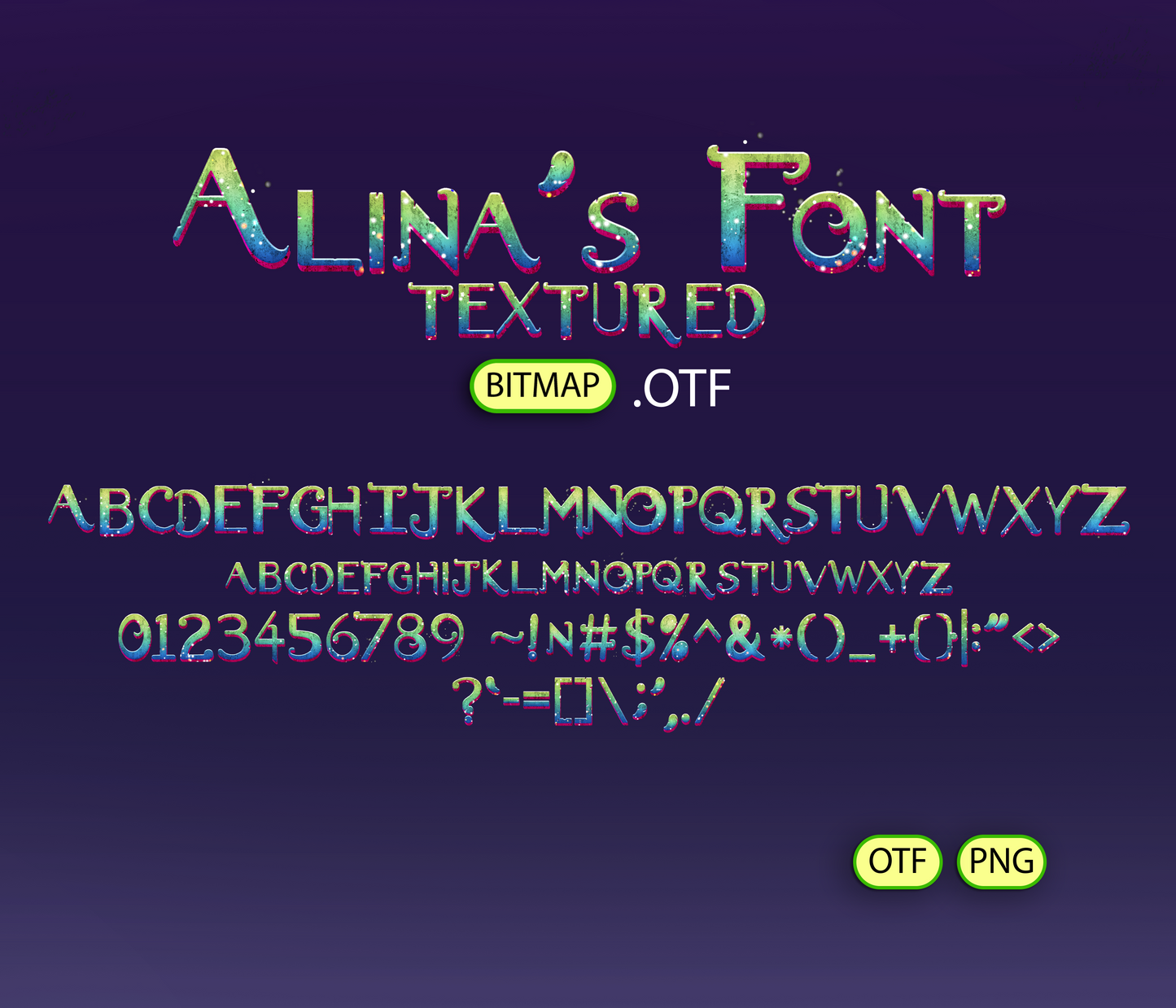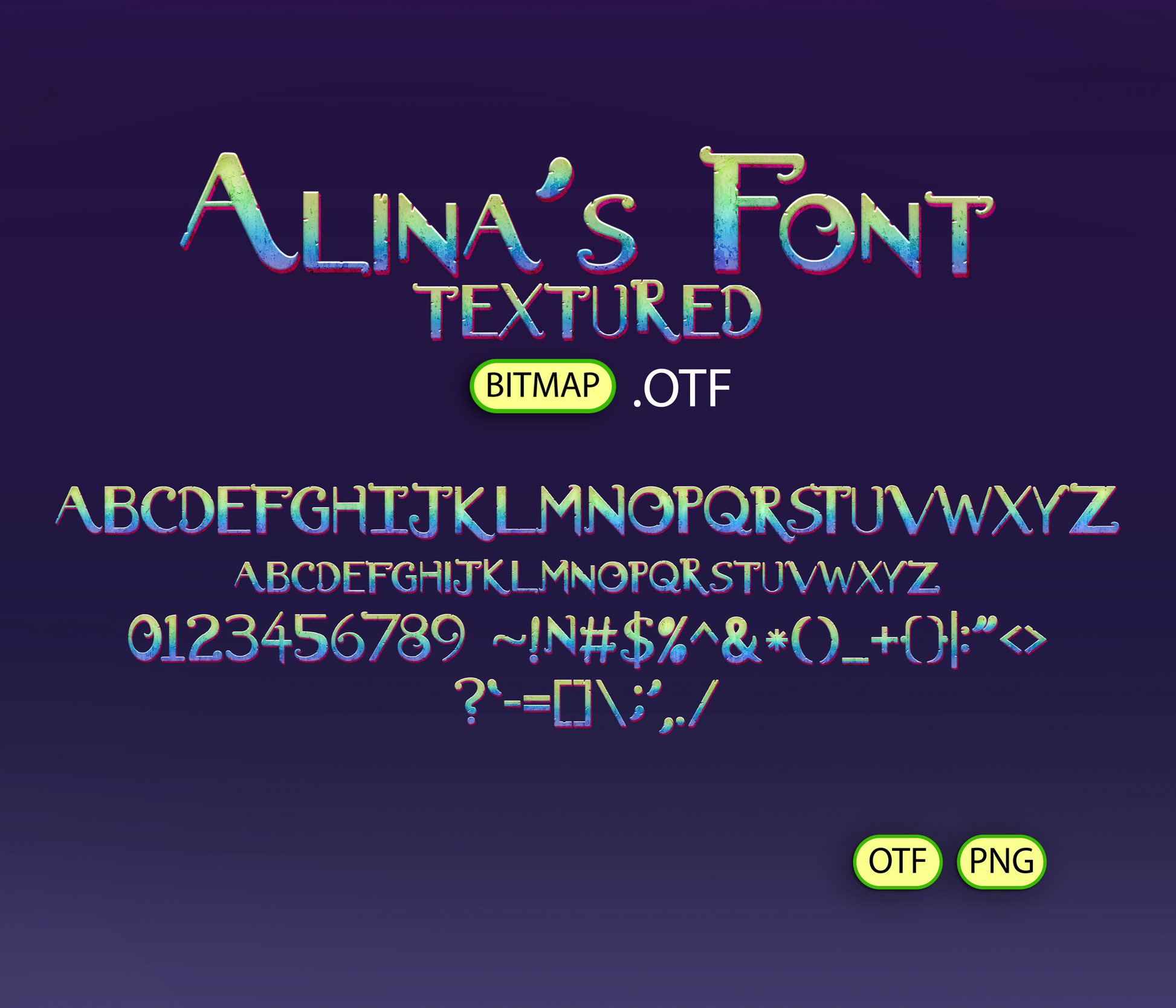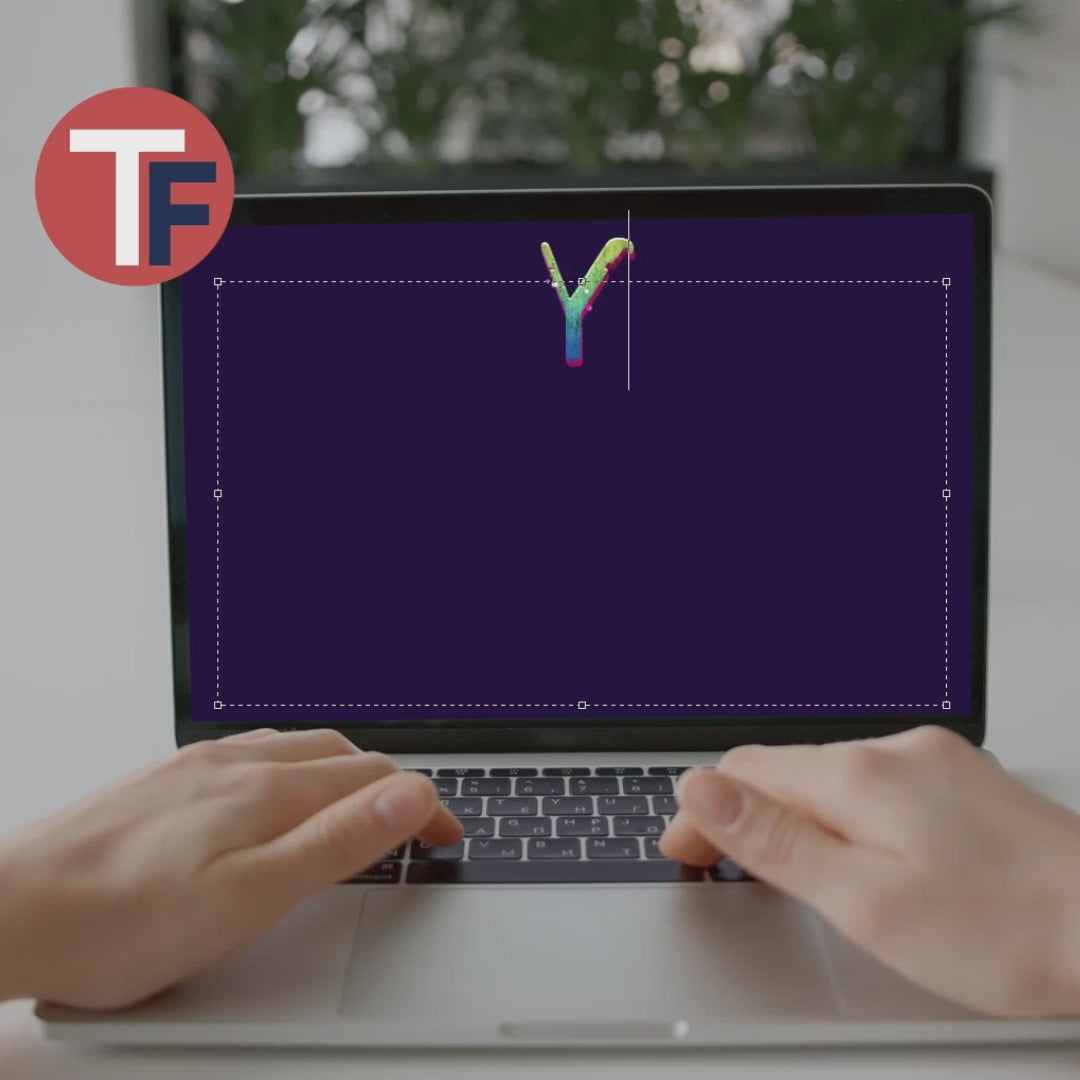
Experience the magic of Magical Casita Textured Font—a vibrant and whimsical typeface that adds a touch of enchantment to any project. Perfect for Cricut designs, custom apparel, and family celebrations, this digital font is your passport to a world of creative possibilities.
- Whimsical Style: Inspired by a magical animated world, this font brings storybook charm to your designs.
- Versatile Applications: Ideal for Cricut projects, home decor, party invitations, cake toppers and more.
Creative Possibilities
- Craft custom apparel that celebrates family, tradition, and magic.
- Design vibrant party invitations for birthdays, anniversaries, or themed events.
- Create spellbinding wall art or home decor that captures the essence of folklore and Latinx culture.
- Add a fantastical touch to your scrapbooking projects, gift ideas, or craft supplies.
This font is perfect for:
- Creating enchanting party decorations
- Designing custom apparel for family events
- Crafting unique greeting cards with a magical twist
- Making eye-catching social media graphics
- Personalizing school supplies with a touch of wonder
- Developing fun, culturally-inspired educational materials
- Designing logos for family-friendly businesses
- Creating playful website headers for lifestyle blogs
- Crafting memorable invitations for cultural celebrations
- Adding a magical flair to DIY craft projects